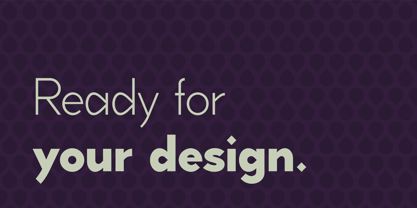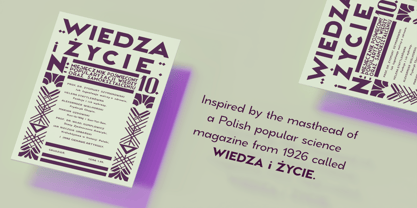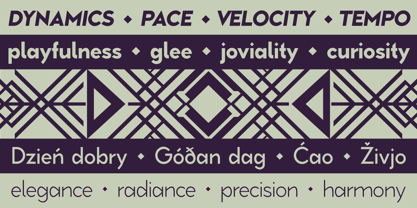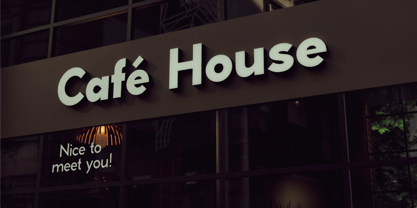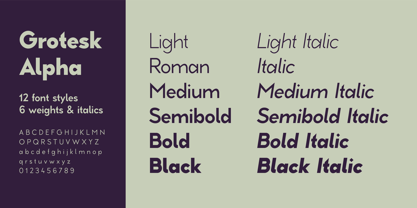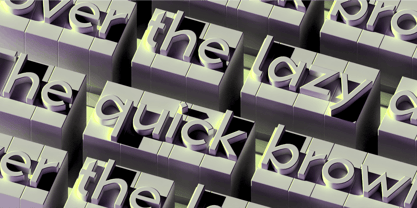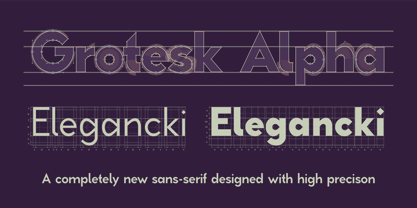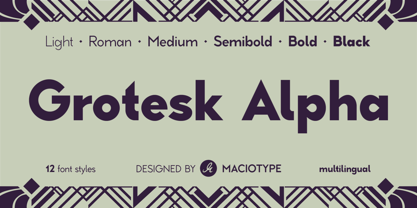
Grotesk Alpha
by MACIOTYPE
The Grotesk Alpha Font Family was designed by Maciej Grabowski and published by MACIOTYPE. Grotesk Alpha contains 12 styles.
Grotesk Alpha is a versatile sans-serif typeface family inspired by early 20th-century typography, particularly by the masthead of a Polish popular science magazine from 1926 Wiedza i Życie (Life and Knowledge). This typeface presents a contemporary interpretation of modernist design principles, merging historical references with precise digital craftsmanship. The name Grotesk Alpha reflects the dual nature of the design: "Grotesk" refers to the early sans-serif, monolinear letterforms that originated in 19th-century France, which were once seen as unconventional departures from classical serif styles. These early grotesques, such as Akzidenz-Grotesk (1896), paved the way for modernist icons like Futura, Univers, and Helvetica. "Alpha" alludes to the first letter of the Greek alphabet and the distinctive form of the lowercase a, symbolizing both origin and identity. Grotesk Alpha is characterized by its monolinear design, versatility, and subtle detailing. A defining visual motif is the use of diamond and droplet forms—a hybrid shape between a rhombus and a circle—that adds unique character to selected lowercase letters. This geometric nuance gives the typeface a distinctive rhythm while maintaining clarity and balance. Developed through a research-driven design process that combines historical analysis, modular construction, and optical refinement, the typeface achieves visual harmony and consistency across its twelve styles. Built with high-precision cubic Bézier curves, it delivers smooth geometry and excellent rendering on both screen and in print. The family includes 12 styles, both upright and italic. Each font supports 121 languages making it a flexible tool for editorial, branding, and digital design.
About MACIOTYPE
MACIOTYPE is an independent type foundry founded by Polish designer Maciej Grabowski, a graduate of the Academy of Fine Arts in Krakow with a background in industrial and graphic design. The foundry focuses on the development of contemporary typefaces that draw inspiration from Central European typographic traditions, combining historical research with modern design methods. MACIOTYPE aims to create versatile, precisely crafted fonts that balance functionality, aesthetics, and cultural heritage.